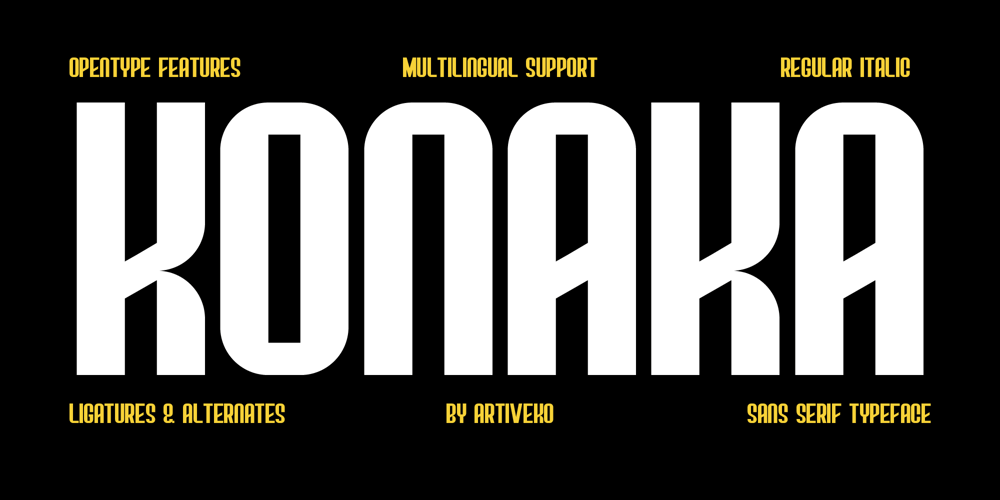
Konaka Font Family was designed by Iwan Alwan and published by Artiveko. Konaka contains 2 styles and family package options. Konaka, a sleek sans-serif font meticulously crafted by Iwan Alwan.Perfectly tailored for business ventures, creative endeavors, and personal projects alike, Konaka exudes a contemporary charm that captivates the eye. Its clean lines and balanced proportions lend a sense of professionalism while maintaining a touch of creativity.Whether adorning a corporate logo, designing marketing materials, or adding flair to personal endeavors, Konaka stands as a versatile typographic companion. Elevate your projects with Konaka and let its modern simplicity leave a lasting impression.